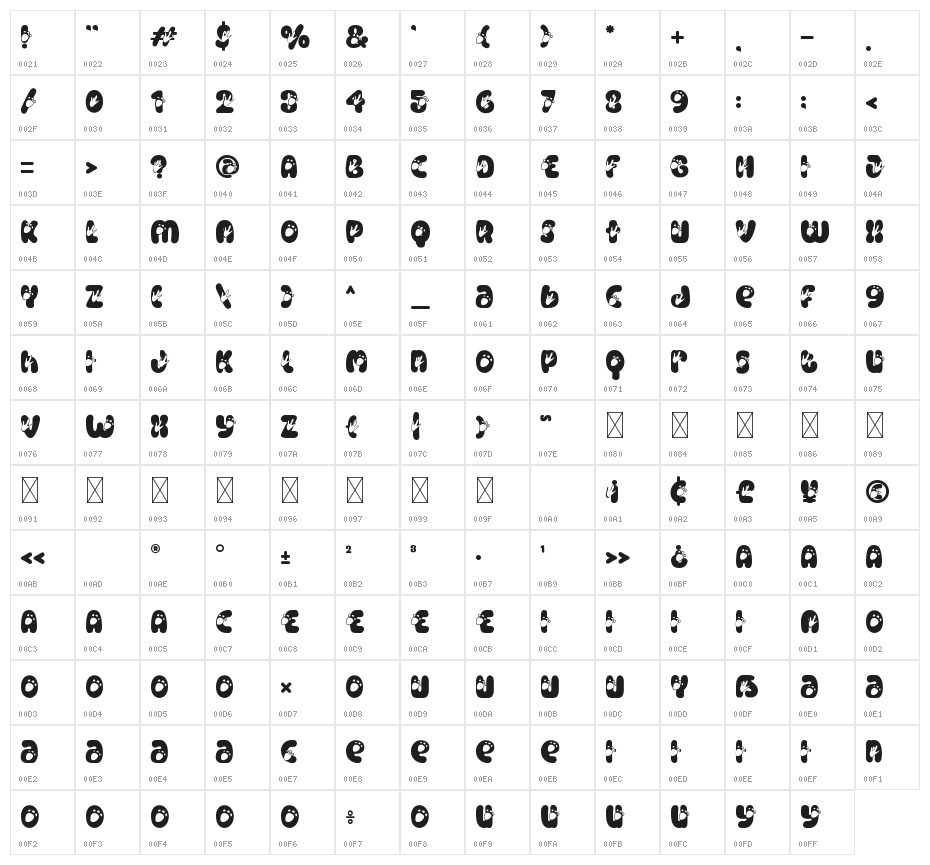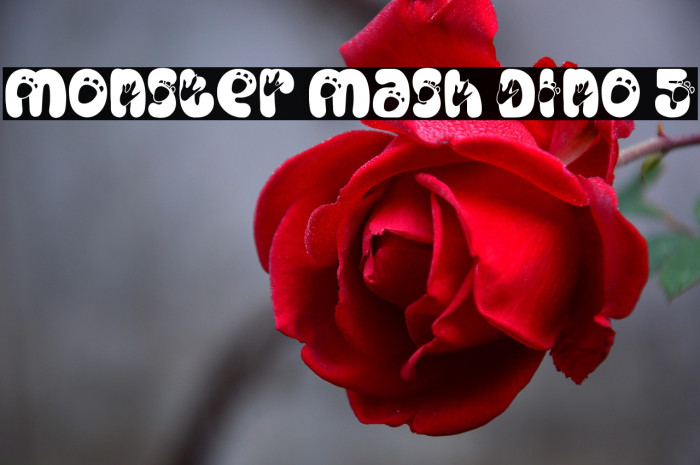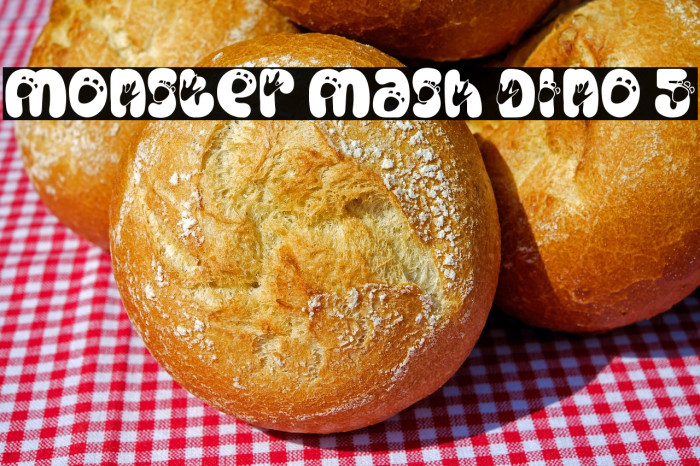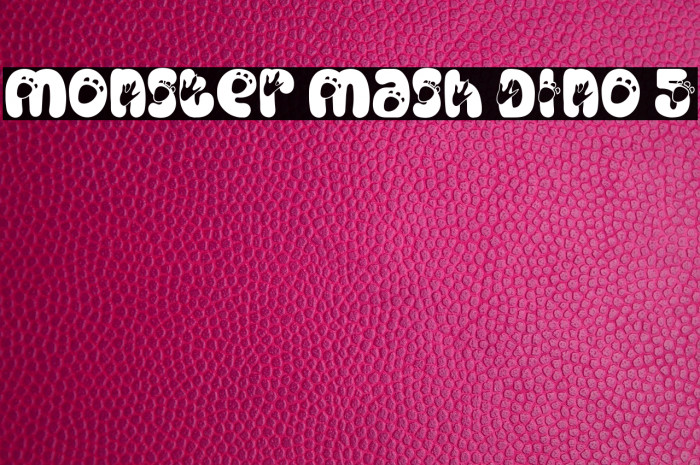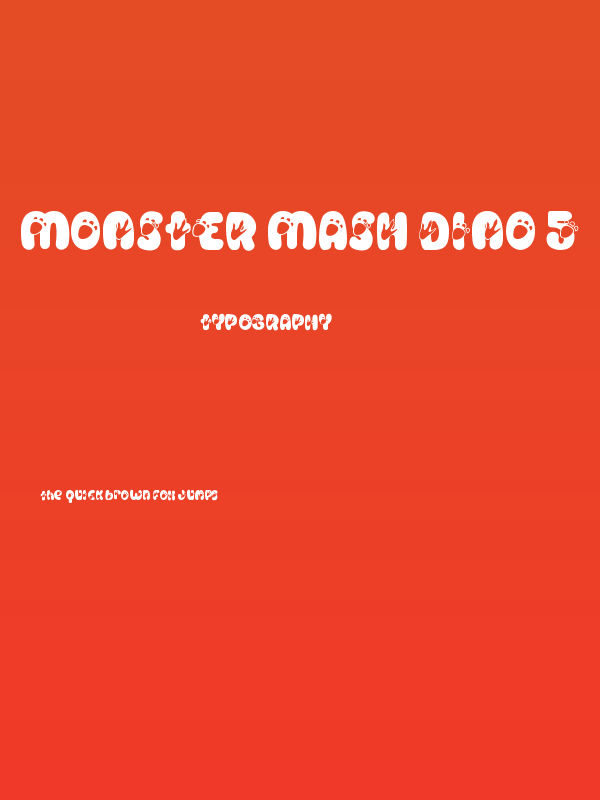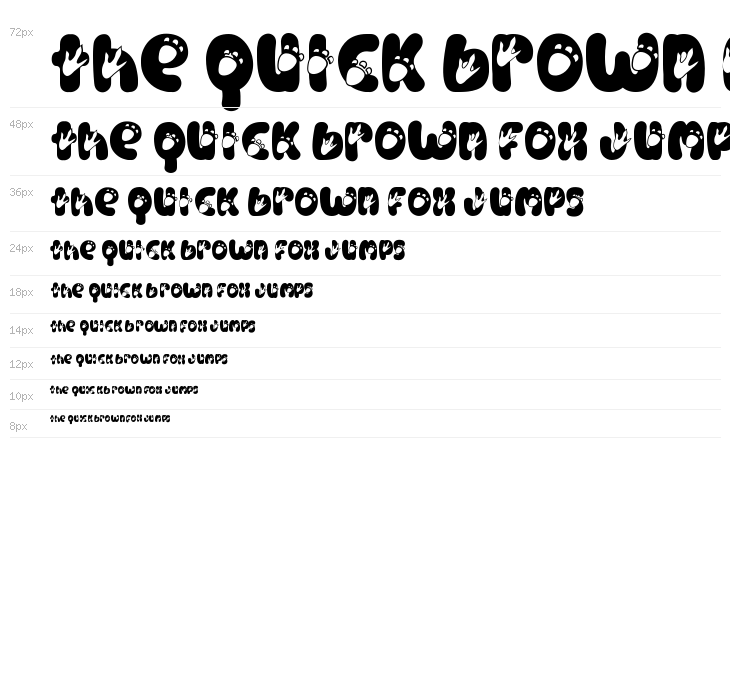
Monster Mash Dino 5 Font
Monster Mash Dino 5 Description
This playful and whimsical font features bold, rounded characters with unique dinosaur footprints integrated into each letter and number. The design is highly decorative, making it stand out with its quirky and fun appearance. The characters are evenly spaced, with a consistent width that maintains readability despite the decorative elements. The font's style is reminiscent of children's themes, evoking a sense of adventure and imagination. Its boldness and unique character design make it suitable for projects that require a touch of creativity and fun.
| Proposed Projects | Ideal for children's books, educational materials, themed party invitations, playful branding, and toy packaging. |